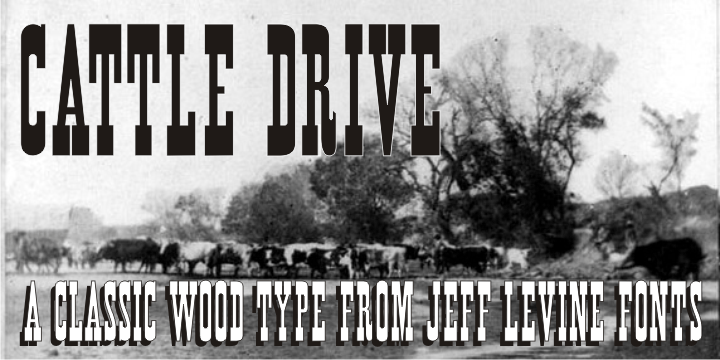
Cattle Drive
Cattle Drive JNL is based on some examples of a classic condensed wood type. Lettering of this period lends itself well to themes of Western life, carnivals, circuses or classic broadside posters.